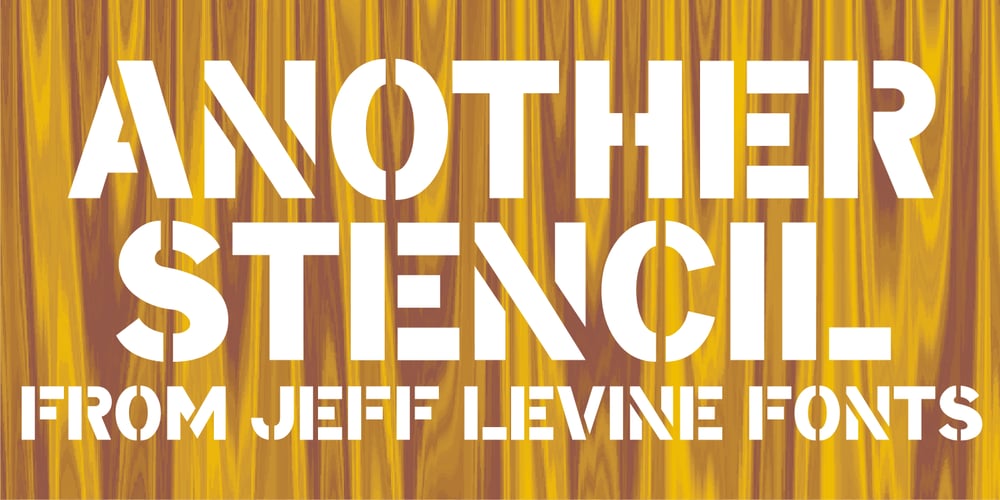
Another Stencil JNL Font Family was designed by Jeff Levine and published by Jeff Levine. Another Stencil JNL contains 1 styles and family package options. With a large variety of stencil fonts contained within the Jeff Levine Fonts library, Another Stencil JNL is simply another stencil design added to this growing collection. Modeled from a lettering guide manufactured in the 1970s, the style is influenced by Franklin Gothic, but has enough differences in the shapes of the stencil characters to be considered a cousin to that classic design.